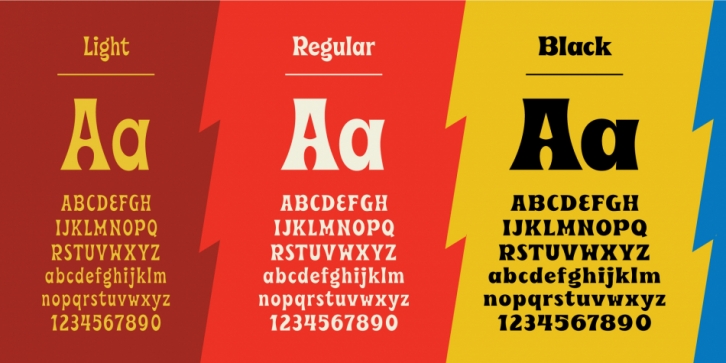
Beale is a display and retro font family. This typeface has three styles and was published by Hoodzpah.
Beale is a retro display font that started as a custom lettering project to promote a speaking engagement in Memphis with Creative Works. The letterforms were inspired by the amazing lettering on Blues and Rock ‘N’ Roll records from local pillars, Sun Studio and Stax Records. This display font comes with tons of additional fun characters and glyphs.
— Open Type Features: discretionary ligatures, alternates, emoji, and special characters.
— Standard English alphabet
—Numerals, Currency Symbols, Standard Punctuation
— Language Support: Western European, Central European, South Eastern European
— Plus extra glyphs like smiley faces, arrows, and more!
· Beale Light
· Beale Regular
· Beale Black